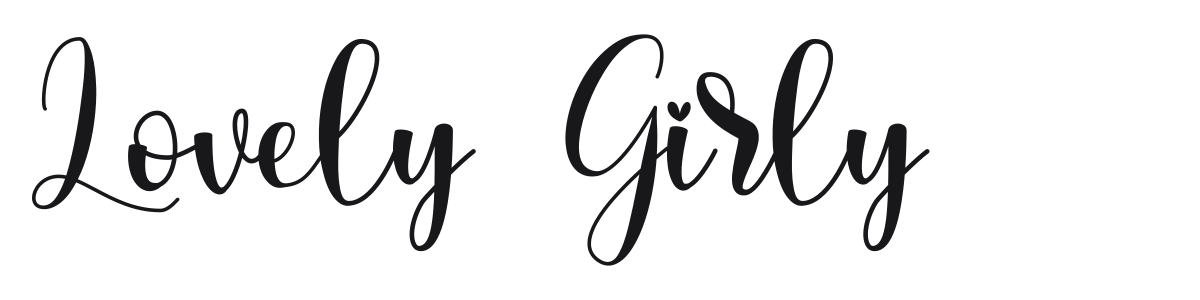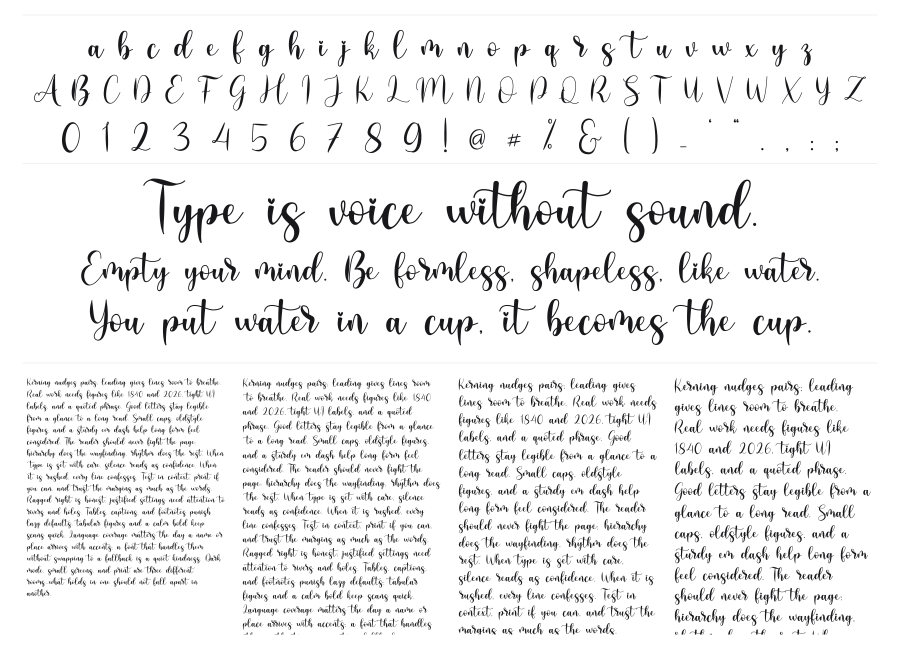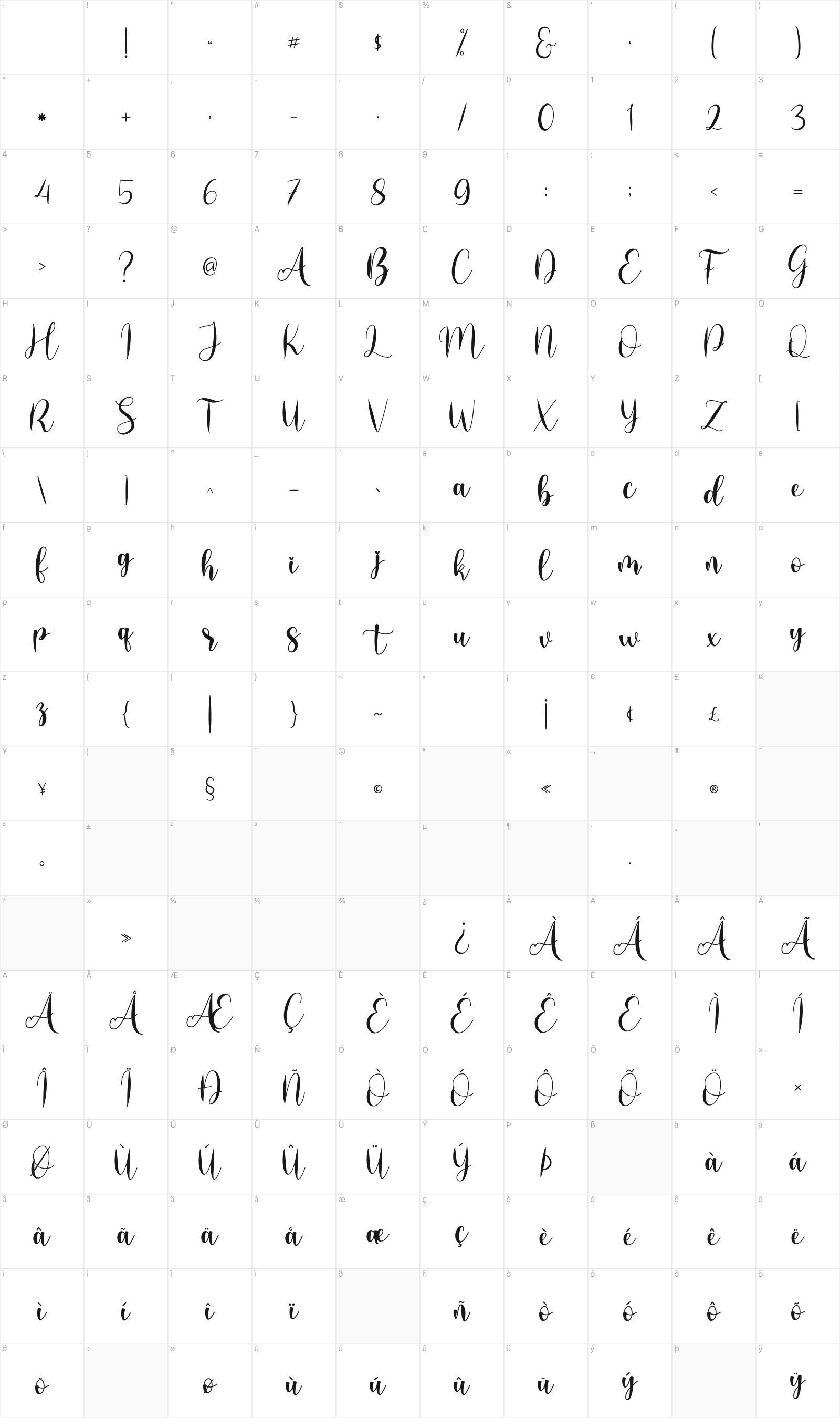
Lovely Girly
Lovely Girly is a bold brush script from Nirmana Visual with the energetic, hand-lettered feel of modern calligraphy. Thick downstrokes, looping ascenders, and a bouncy baseline give it a lively, romantic personality that works across wedding stationery, beauty branding, and social media graphics. A small heart detail tucked into the letterforms adds a signature finishing touch.